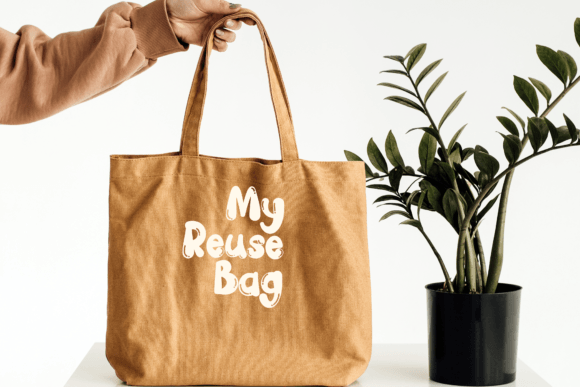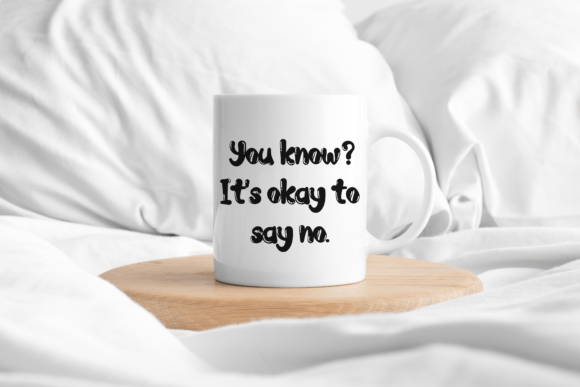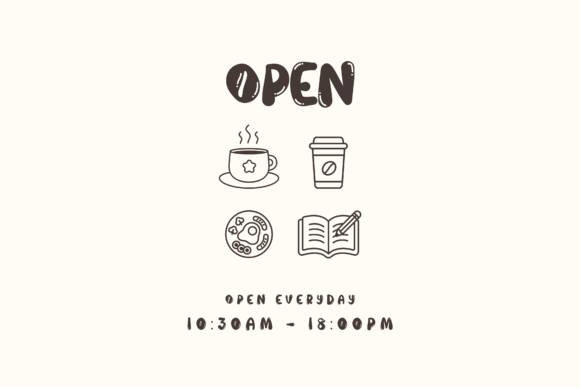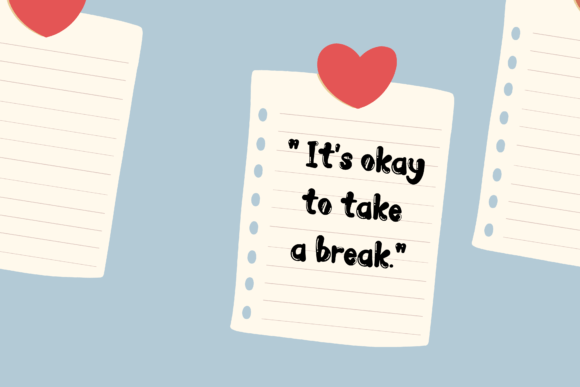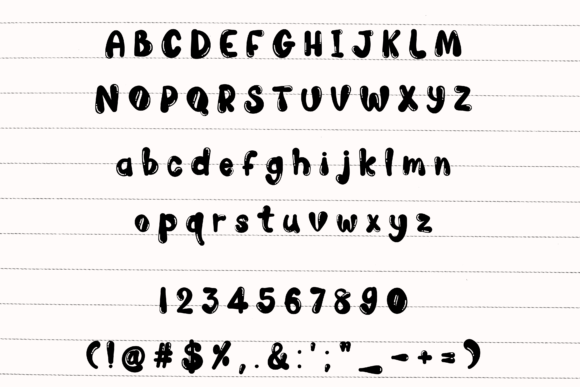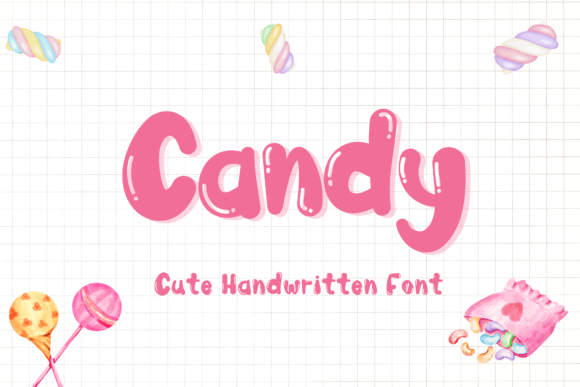
Candy Font: The Sweetest Addition to Your Design Projects
Are you looking for a font that can add a personal touch to your designs? Do you want to evoke the warmth and charm of a handwritten note on a sunny morning? Look no further than Candy Font, a charming handwritten font that is perfect for invitations, greeting cards, and cozy branding projects.
The Charm of Candy Font
Candy Font is a beautiful, handwritten font that is designed to bring a sense of warmth and friendliness to your designs. With its gentle curves and friendly demeanor, it’s the perfect choice for designers and crafters who want to add a personal touch to their projects. Whether you’re creating invitations, greeting cards, or branding materials, Candy Font is sure to make your designs stand out.
Perfect for Invitations and Greeting Cards
Candy Font is ideal for invitations and greeting cards because of its personal and intimate feel. The font’s gentle curves and soft edges give it a warm and welcoming appearance that is sure to make your recipients feel special. Whether you’re creating wedding invitations, birthday cards, or holiday greetings, Candy Font is the perfect choice.
Cozy Branding Projects
Candy Font is also perfect for cozy branding projects, such as packaging, labels, and marketing materials. The font’s friendly and approachable demeanor makes it perfect for brands that want to convey a sense of warmth and approachability. Whether you’re creating branding materials for a bakery, a coffee shop, or a boutique, Candy Font is sure to help you create a cohesive and inviting brand identity.
Why Choose Candy Font?
So why choose Candy Font for your design projects? Here are just a few reasons:
• Unique and Personal**: Candy Font is a unique and personal font that will add a touch of warmth and charm to your designs.
• Versatile**: The font is versatile and can be used for a wide range of design projects, from invitations and greeting cards to branding materials and packaging.
• Easy to Read**: Candy Font is easy to read, even at small sizes, making it perfect for designs that require a lot of text.
• High-Quality**: The font is high-quality and comes with a range of features, including ligatures, alternate characters, and more.
Tips for Using Candy Font
Here are a few tips for using Candy Font in your design projects:
• Pair with Other Fonts**: Candy Font pairs well with other fonts, such as sans-serif fonts and script fonts. Experiment with different pairings to find the one that works best for your design.
• Use for Headings and Titles**: Candy Font is perfect for headings and titles, but it can also be used for body text. Experiment with different sizes and styles to find the one that works best for your design.
• Add a Personal Touch**: Candy Font is all about adding a personal touch to your designs. Consider adding illustrations, graphics, or other design elements to make your design more personal and inviting.
Candy Font is a charming handwritten font that is perfect for designers and crafters who want to add a personal touch to their designs. With its gentle curves and friendly demeanor, it’s ideal for invitations, greeting cards, and cozy branding projects. Whether you’re creating wedding invitations, birthday cards, or branding materials, Candy Font is sure to make your designs stand out. So why not give it a try and see the difference it can make in your design projects?